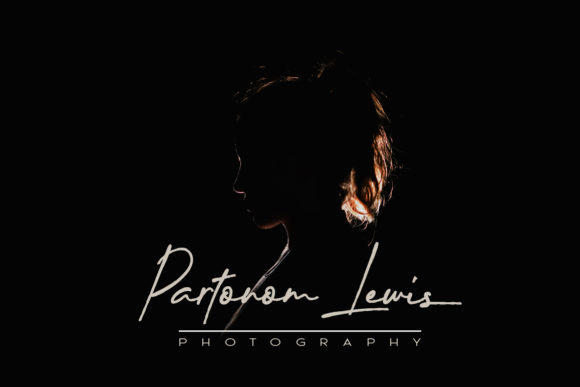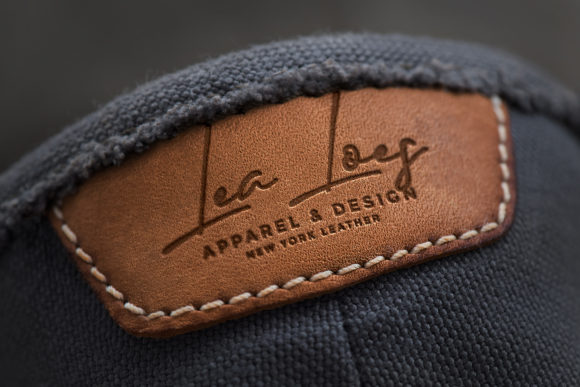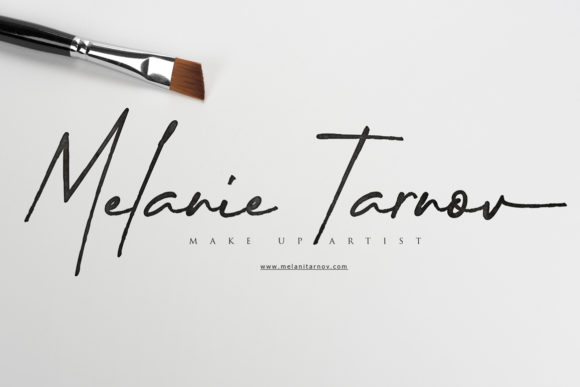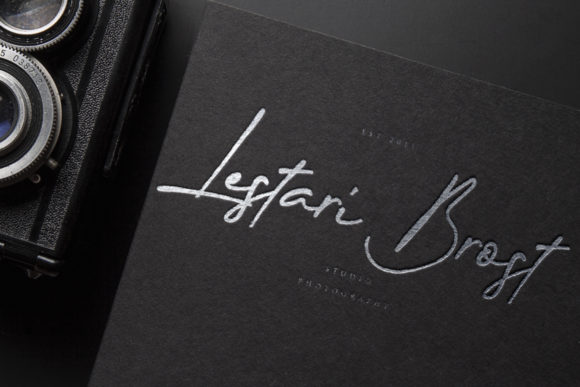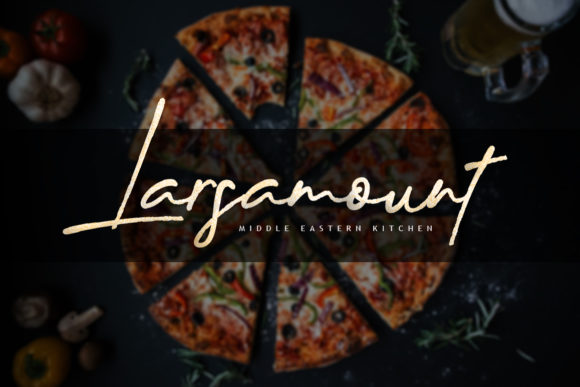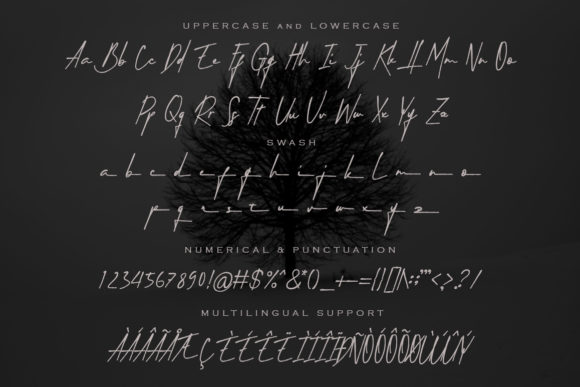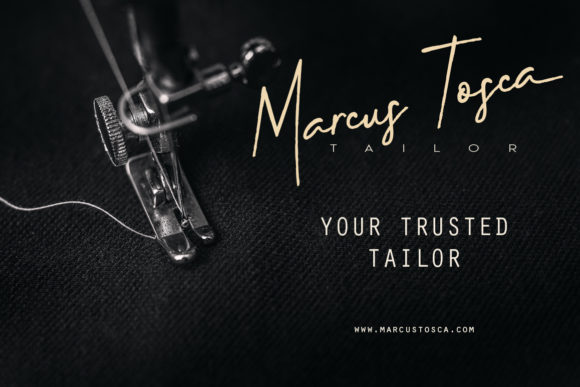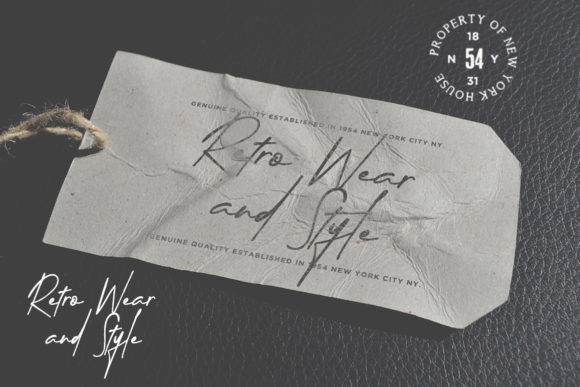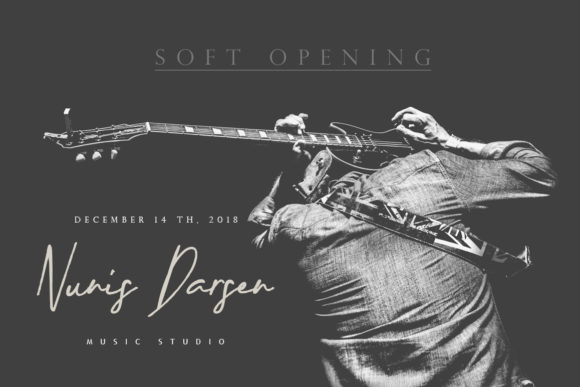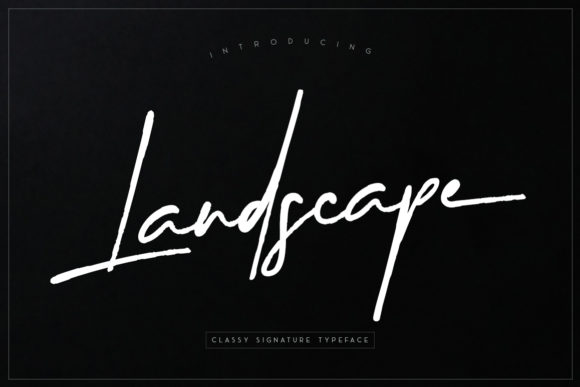
Landscape Font
About Landscape Font
The Landscape is a beautiful signature font. It’s the perfect font for adding a touch of elegance to your designs.